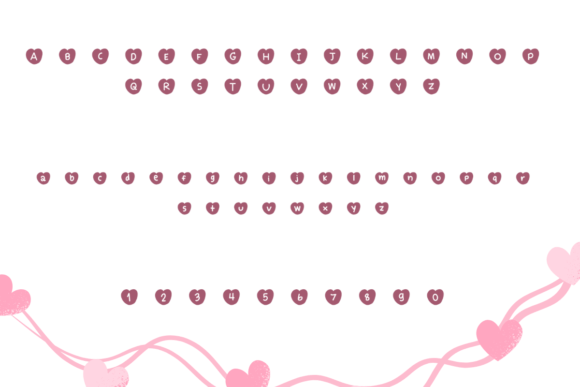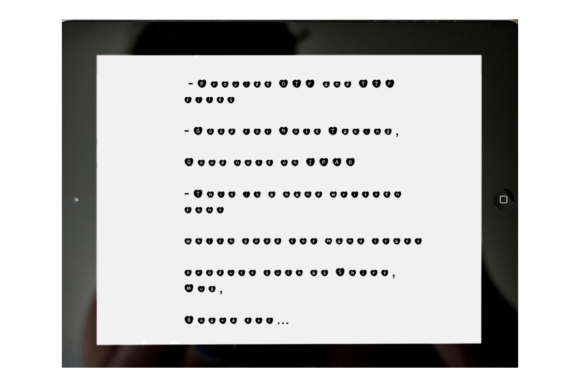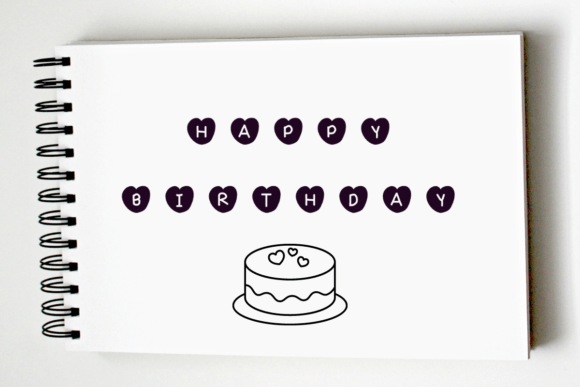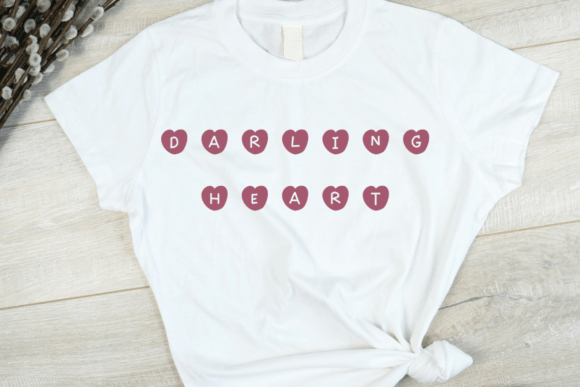
Introducing Darling Heart Font: The Perfect Addition to Your Design Collection
Are you tired of using the same old fonts in your designs? Do you want to add a touch of whimsy and playfulness to your creative projects? Look no further than Darling Heart Font, a cute and quirky display font that’s sure to bring a smile to your face. In this article, we’ll take a closer look at Darling Heart Font, its features, and how you can use it to take your designs to the next level.
What is Darling Heart Font?
Darling Heart Font is a beautiful display font that’s perfect for adding a touch of joy and playfulness to your designs. Its unique and quirky style makes it stand out from more traditional fonts, and its versatility ensures that it can be used in a wide range of creative projects, from crafting and scrapbooking to graphic design and digital art.
Key Features of Darling Heart Font
So, what makes Darling Heart Font so special? Here are just a few of its key features:
- Cute and Quirky Style: Darling Heart Font has a unique and playful style that’s sure to add a touch of whimsy to your designs.
- Display Font: Darling Heart Font is a display font, making it perfect for headlines, titles, and other large text elements.
- Easy to Read: Despite its playful style, Darling Heart Font is easy to read, making it perfect for use in a wide range of creative projects.
- Versatile: Darling Heart Font can be used in a wide range of creative projects, from crafting and scrapbooking to graphic design and digital art.
How to Use Darling Heart Font in Your Designs
Now that we’ve covered the key features of Darling Heart Font, let’s take a look at how you can use it in your designs. Here are a few ideas to get you started:
- Crafting and Scrapbooking: Add a touch of whimsy to your scrapbook pages and craft projects with Darling Heart Font. Use it to create titles, headings, and other text elements that are sure to stand out.
- Graphic Design: Darling Heart Font is perfect for use in graphic design projects, such as brochures, flyers, and posters. Use it to add a touch of personality to your designs and make them more engaging.
- Digital Art: Add a touch of playfulness to your digital art with Darling Heart Font. Use it to create titles, captions, and other text elements that are sure to add visual interest to your art.
Tips for Getting the Most Out of Darling Heart Font
Here are a few tips for getting the most out of Darling Heart Font:
- Use it Sparingly: Darling Heart Font is a display font, so it’s best to use it sparingly. Use it to create headlines, titles, and other large text elements, and pair it with a more traditional font for body text.
- Experiment with Colors: Darling Heart Font looks great in a wide range of colors, so don’t be afraid to experiment. Try using it in bright, bold colors to add a touch of whimsy to your designs.
- Pair it with Other Fonts: Darling Heart Font pairs well with a wide range of other fonts, so don’t be afraid to experiment. Try pairing it with a more traditional font for a contrasting look, or with another playful font for a more cohesive look.
In conclusion, Darling Heart Font is a beautiful and versatile display font that’s perfect for adding a touch of whimsy and playfulness to your designs. Its unique and quirky style makes it stand out from more traditional fonts, and its ease of use ensures that it can be used in a wide range of creative projects. Whether you’re a designer, crafter, or digital artist, Darling Heart Font is sure to become a favorite in your collection.